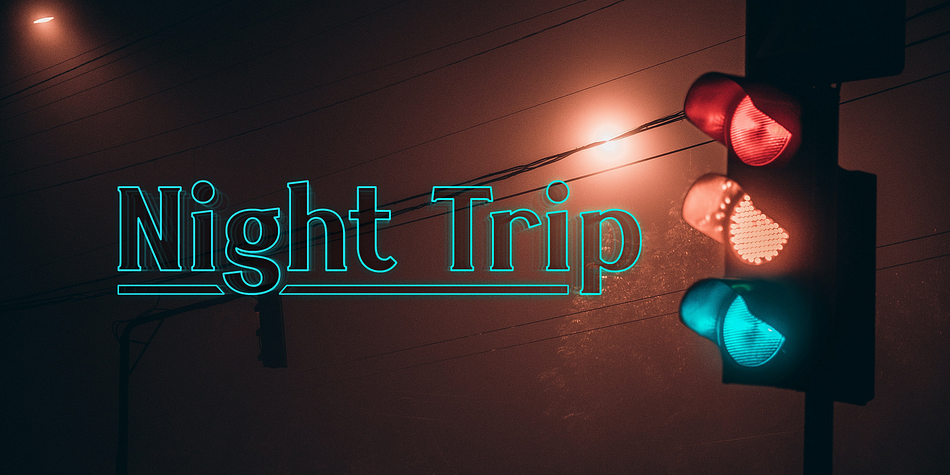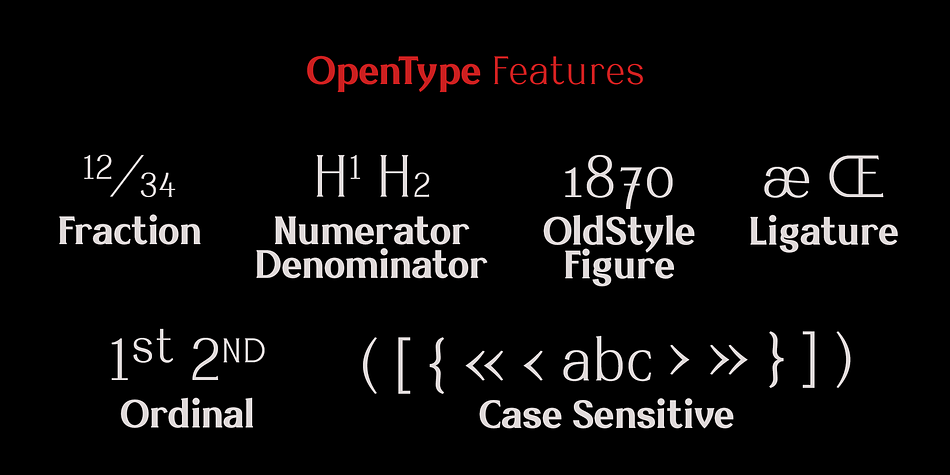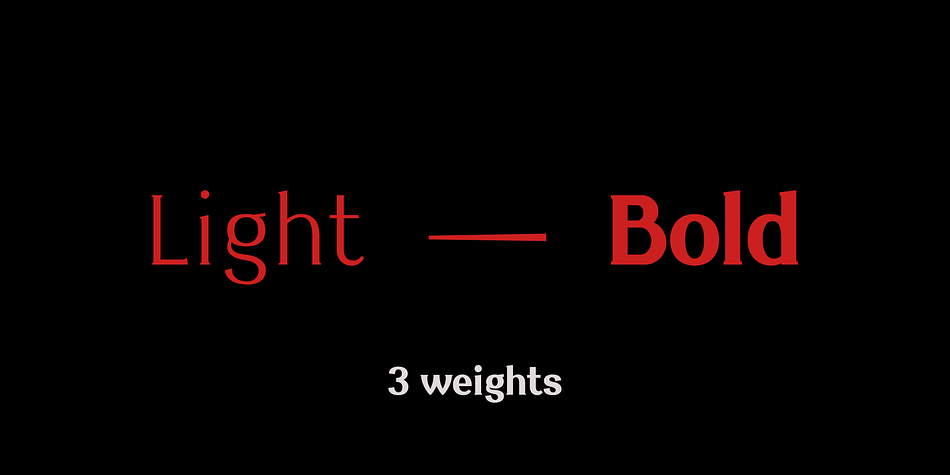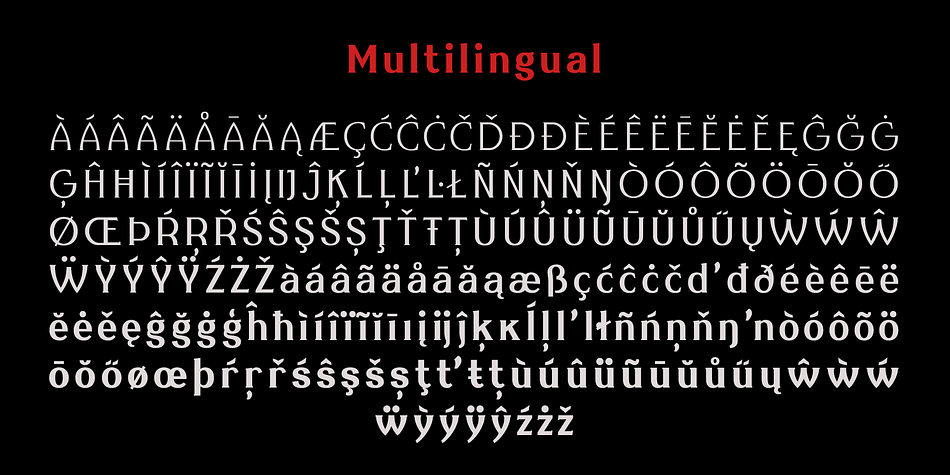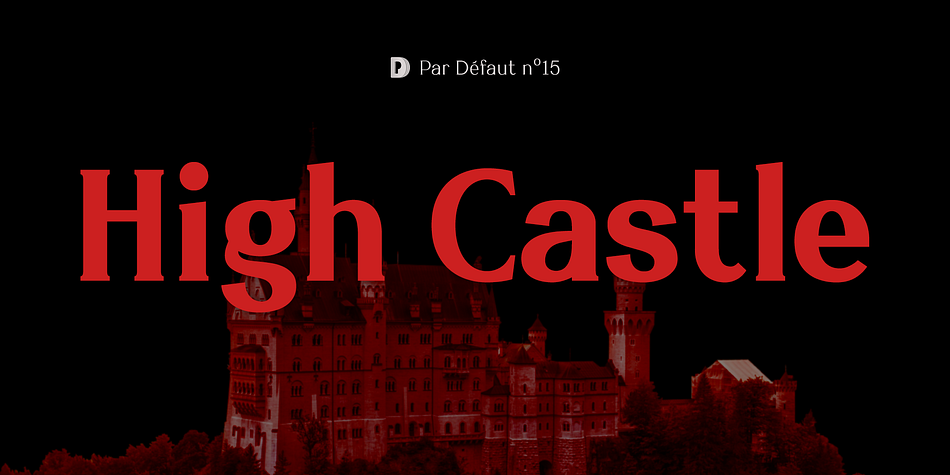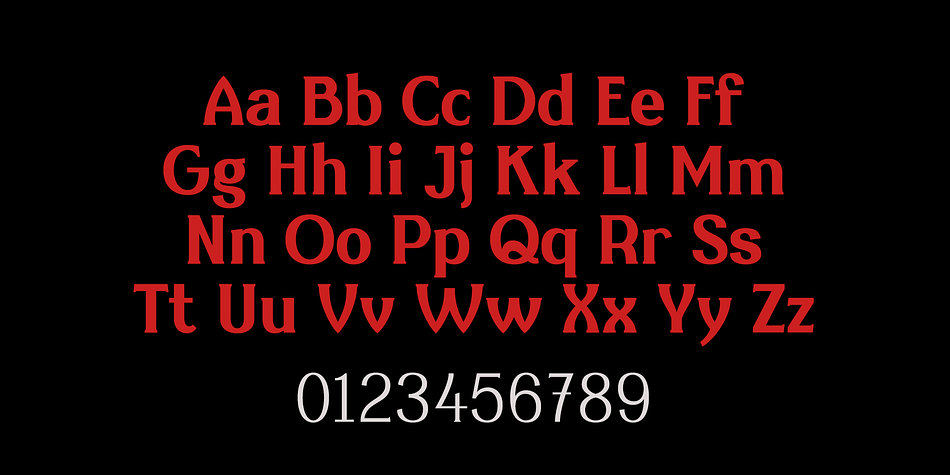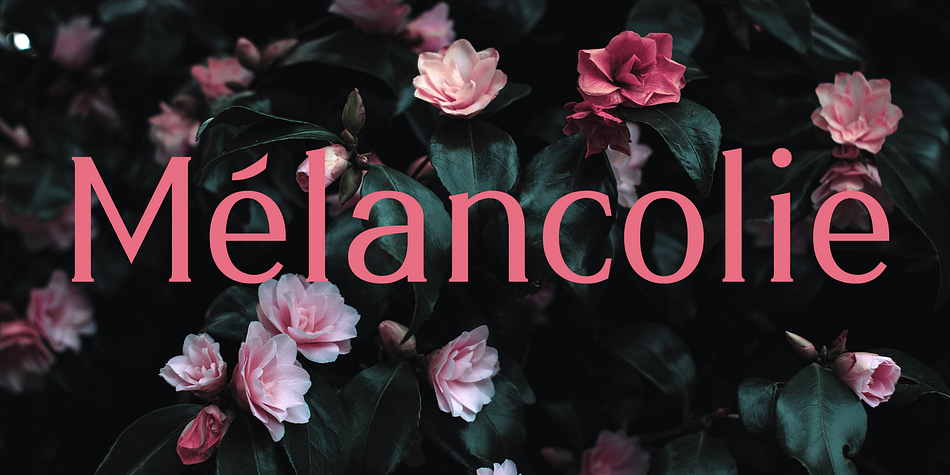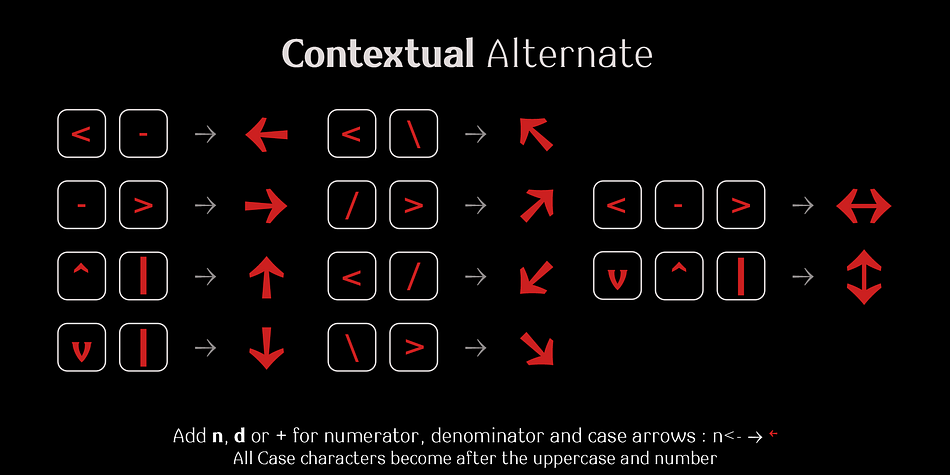
High Castle
High Castle is a serif font family. This typeface has three styles and was published by Par Défaut.
High Castle is a serif family fonts with baroque aspects.
Composed of more than 500 glyphs, inculing many Latin accents for as many languages.
With also 9 OpenType Features (Fractions, Numerator, Denominator, OldStyle Figure, Ordinal, Case Sensitive, Contextual Alternate, Liguature, All Access Alternate) and arrows support.